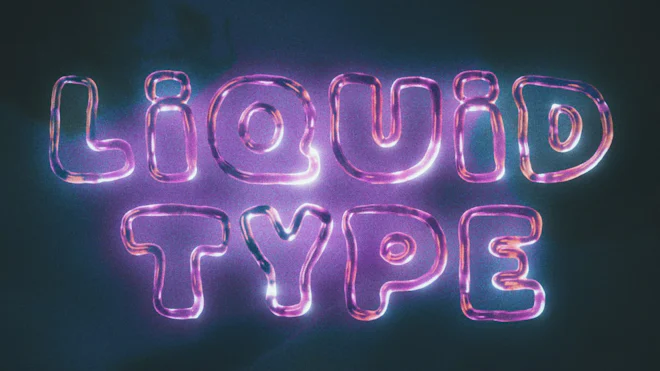
This stock motion graphics pack consist of 46 liquid typefaces and symbols on alpha made of viscous, glue like fluid lit with pink and orange neon lights.